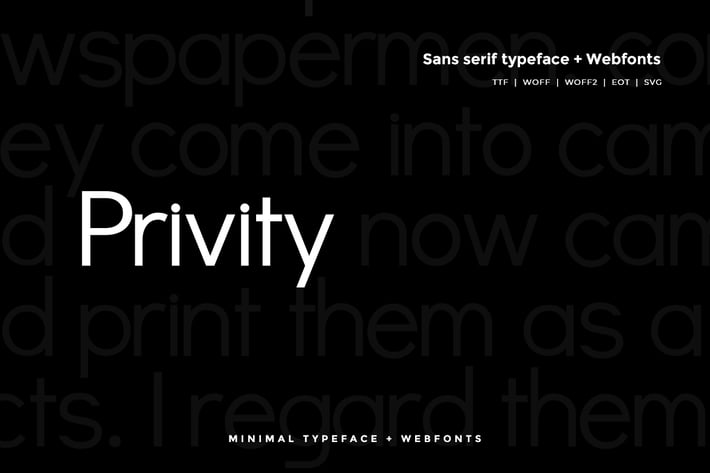
Privity - Modern Typeface + WebFont
Privity Gothic Typeface
Privity is a modern and Minimal Sans Serif typeface, Privity Sans can keep the minimalism at its level best and is a Perfect choice for Creative and Classic Typography Designs.